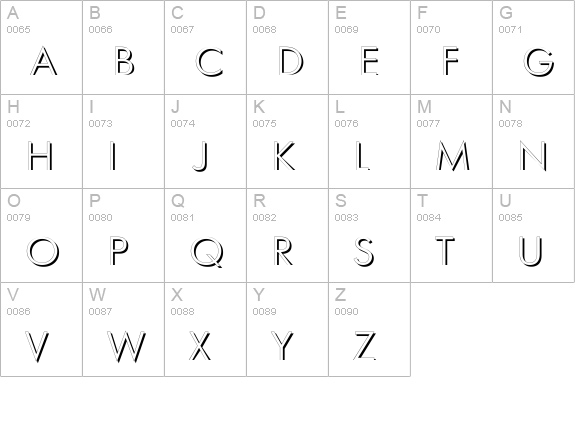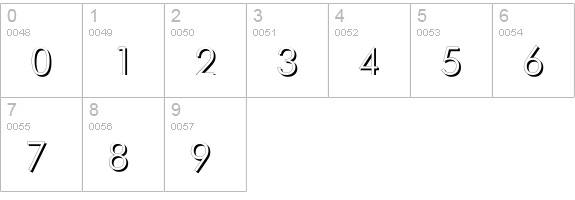
PT FuturisShadow Cyrillic Font Details
PT FuturisShadow Cyrillic font is a beautifully crafted typeface that exudes elegance and sophistication. With its sleek lines and modern aesthetic, this font is perfect for adding a touch of sleekness to your designs. The Cyrillic characters add an element of uniqueness and style to any project. What sets PT FuturisShadow Cyrillic font apart is that it is available for free download at FontsMarket.com. This means that you can access this stunning font without any cost, making it a valuable addition to your font collection. Whether you're designing a website, creating a poster, or working on a branding project, PT FuturisShadow Cyrillic font will elevate your design with its sleek and stylish appearance. Download PT FuturisShadow Cyrillic font today from FontsMarket.com and discover the endless possibilities this font has to offer for your creative projects.